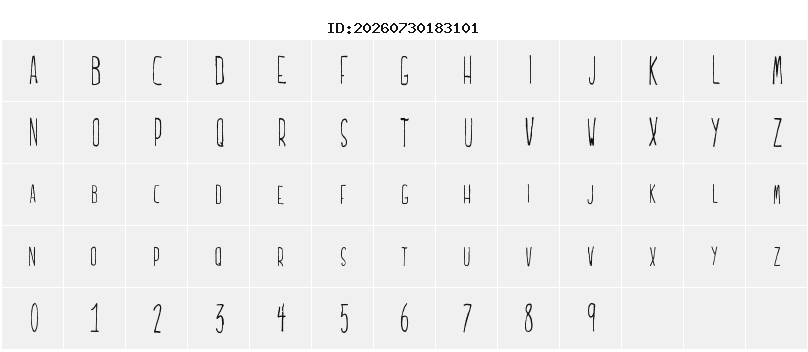
• Font Name: Lucidity
• Full Font Name: Lucidity Ballpoint
About Lucidity.ttf
Lucidity.ttf is a modern, elegant sans-serif font designed for ultimate readability and visual harmony. Perfect for branding, headlines, web design, and print materials.